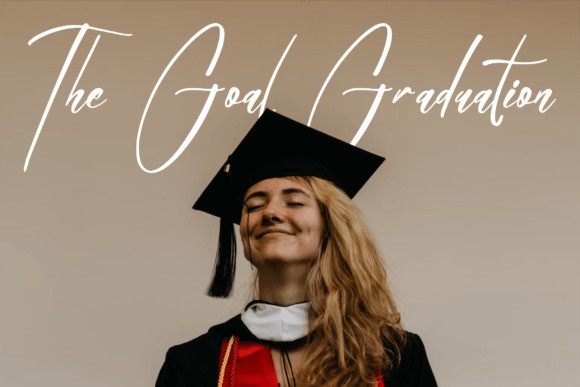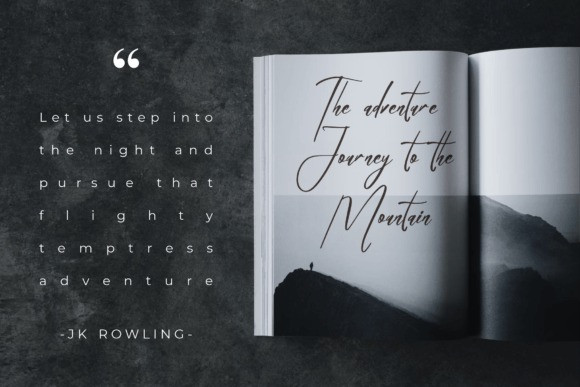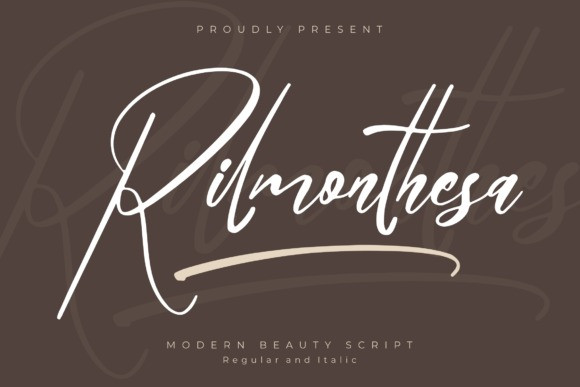
Rilmonthesa Script Font
Rilmonthesa Script Font is a modern script font, perfect for a variety of projects such as logos, branding projects, homeware designs, product packaging, mugs, quotes, posters, shopping bags, t-shirts, book covers, name card, invitation cards, greeting cards, label, photography, watermark, special events, and all your other lovely projects that need a beautiful script taste.